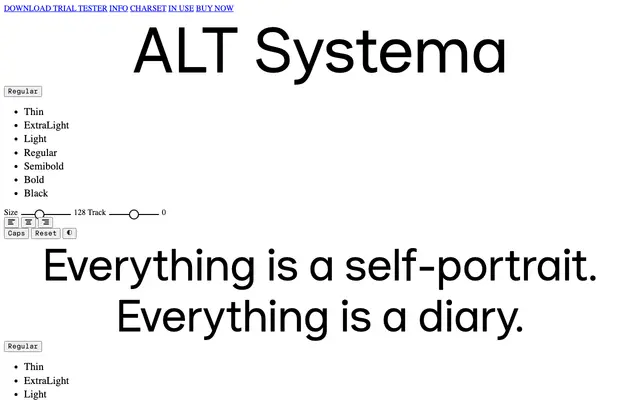
ALT Systema
A clean geometric sans by Giulia Boggio in seven weights, covering 95% of Latin-based languages with over 400 glyphs.
Built with a consistent, upright construction and even stroke weight, it sits comfortably across branding, editorial and digital work where clarity is the priority. Seven weights from Thin to Black give reasonable range without italics, and the broad Latin language coverage makes it practical for multilingual projects. In-use examples from cosmetics packaging to architecture identities suggest it finds most use in straightforward professional contexts.
Clean, contemporary sans-serif with geometric proportions and a neutral, professional character across seven weights. The even stroke contrast and upright construction place it firmly in the geometric sans tradition.